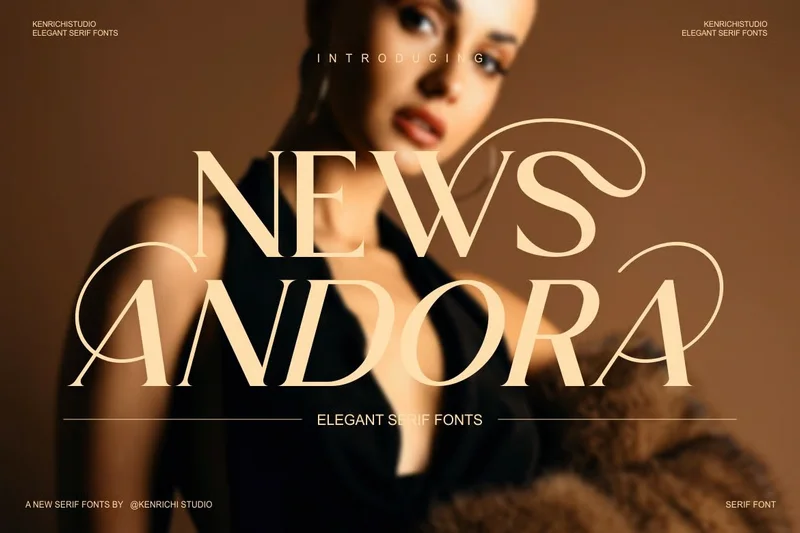
NewsAndora
Proudly present our new product NewsAndora Font
NewsAndora Font is a modern and authentic font.
Perfect for both professional and branding needs of a product.
This font is suitable for any branding project like quotes, logo, blog header, poster, banding, letter, invitation, stationery,
etc… Designed as a versatile and flexible that can be used on a range of projects and mediums.
outstanding in a wide range of contexts.